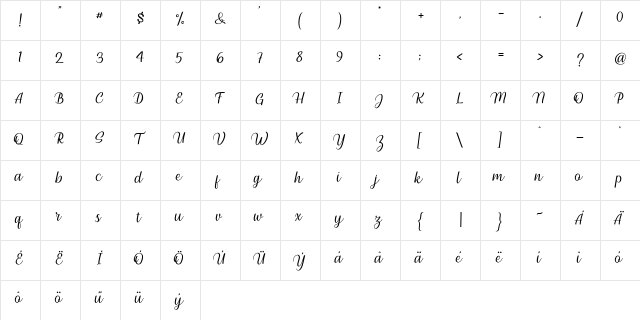
Millenial Script Regular
| Foundry | Rifan Asri |
| Designer | Rifan Asri |
Design Context for Millenial Script Typeface
Millenial Script brings a calligraphic fluidity to the page — its connecting strokes and expressive curves give it an unmistakably human quality.